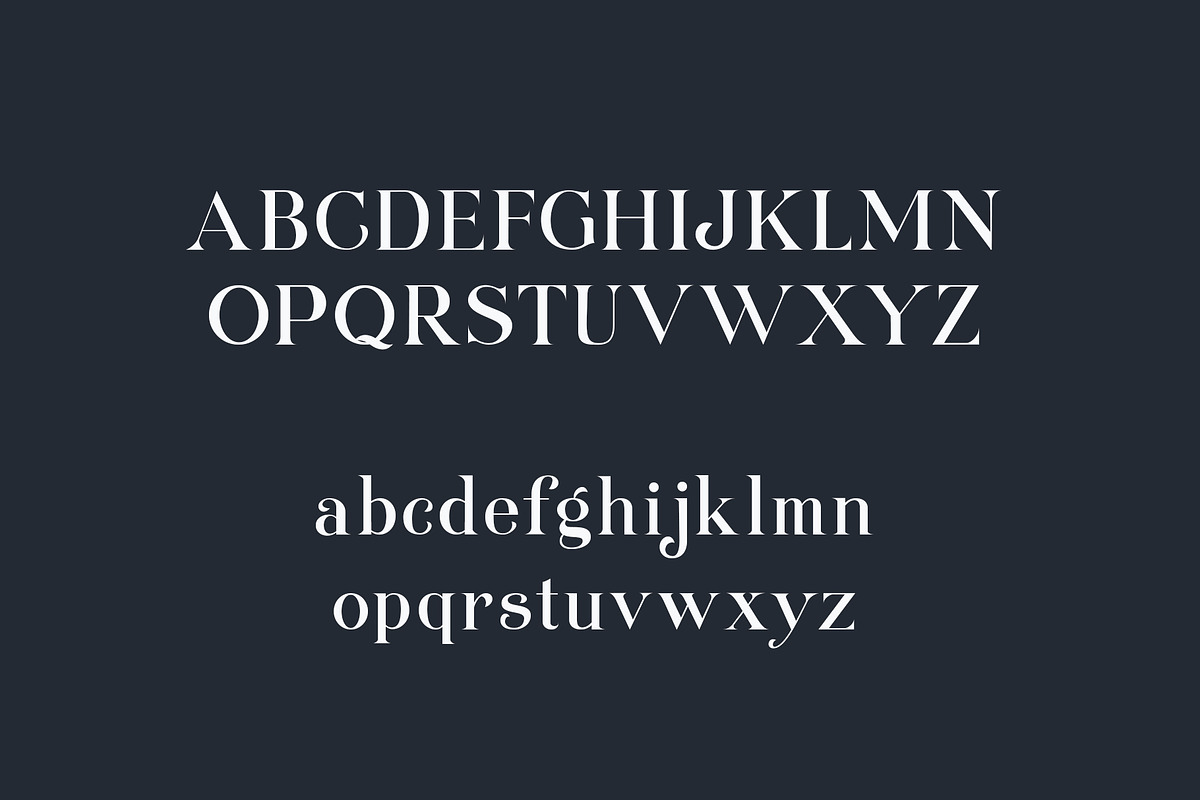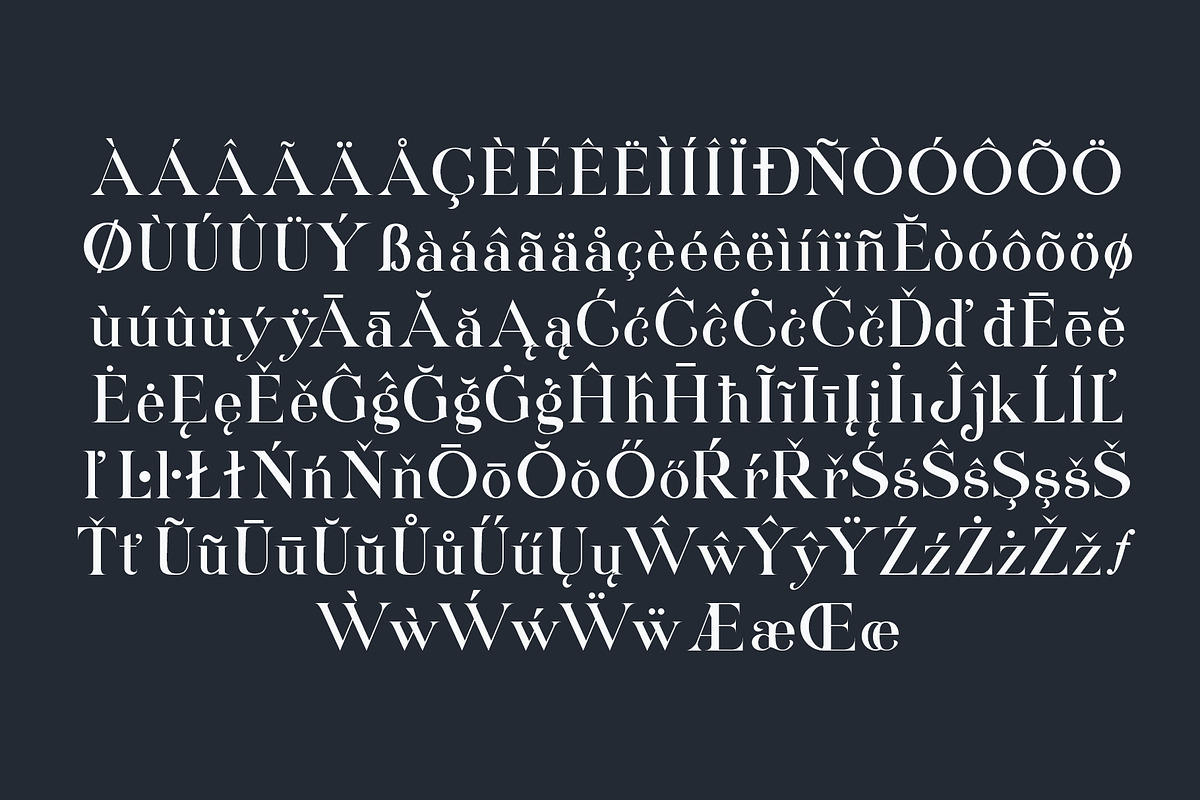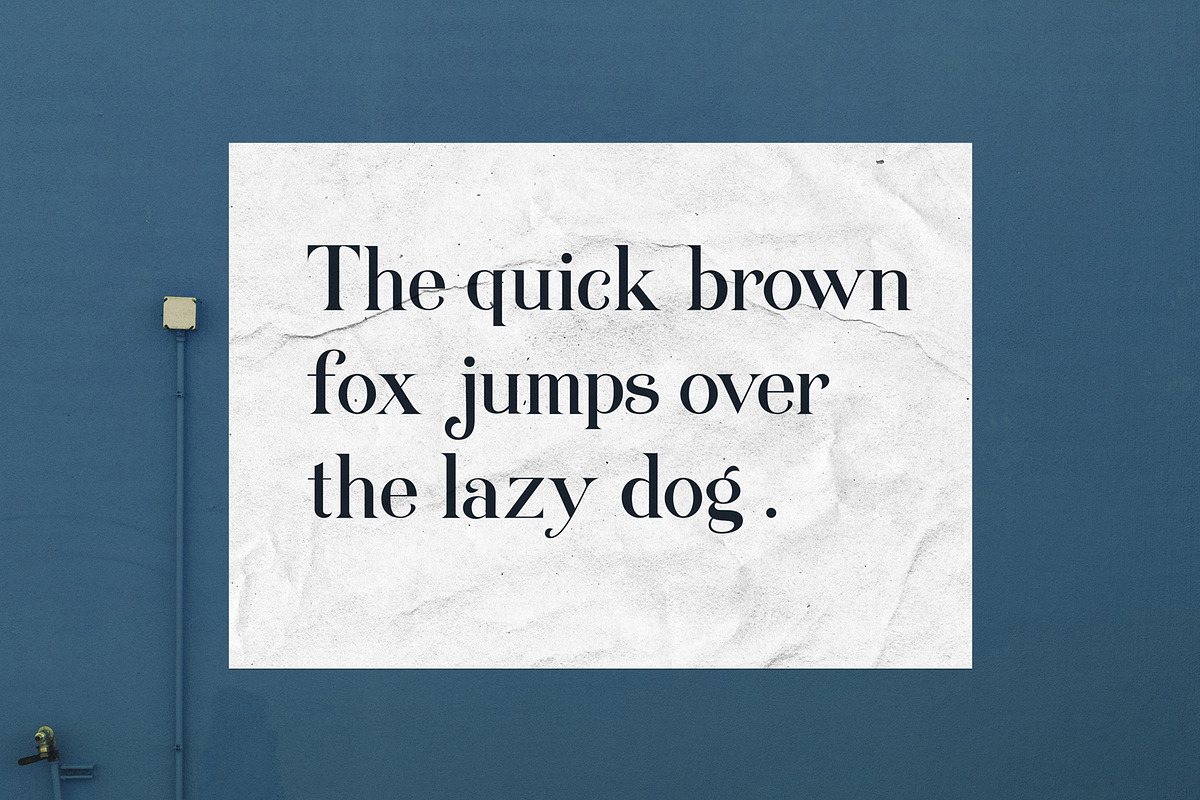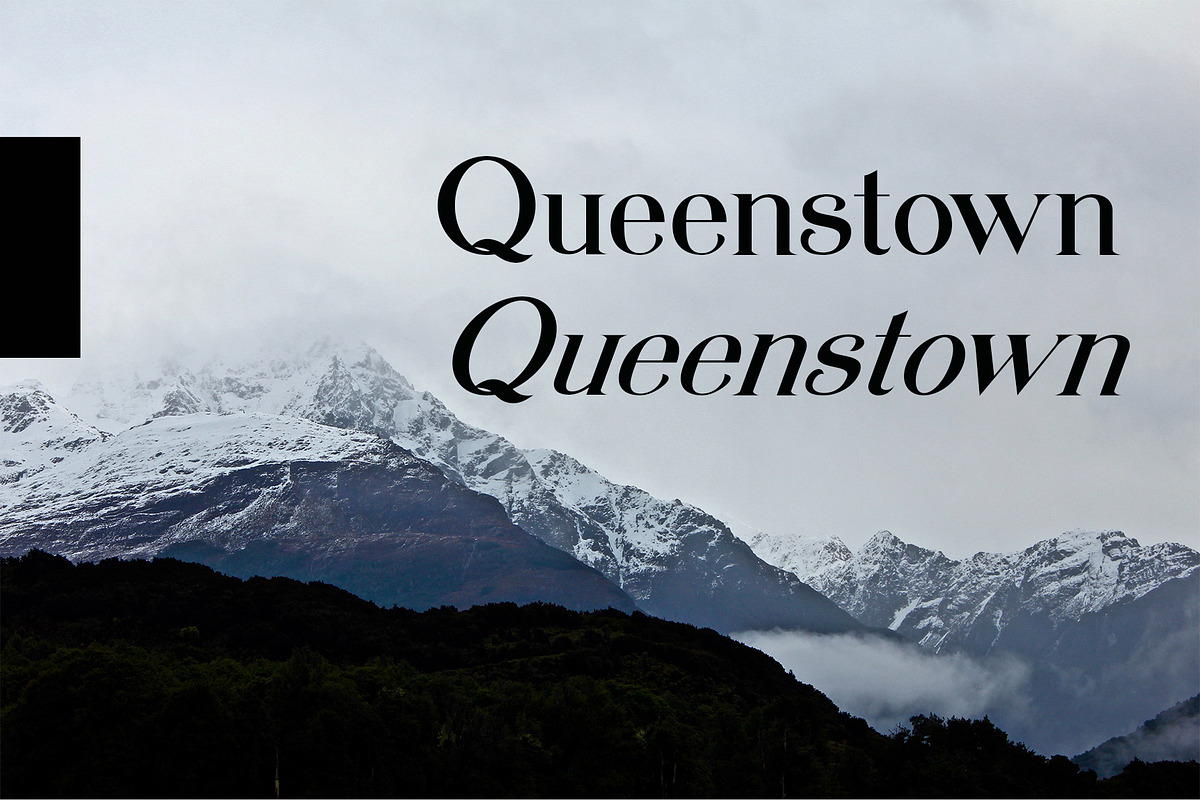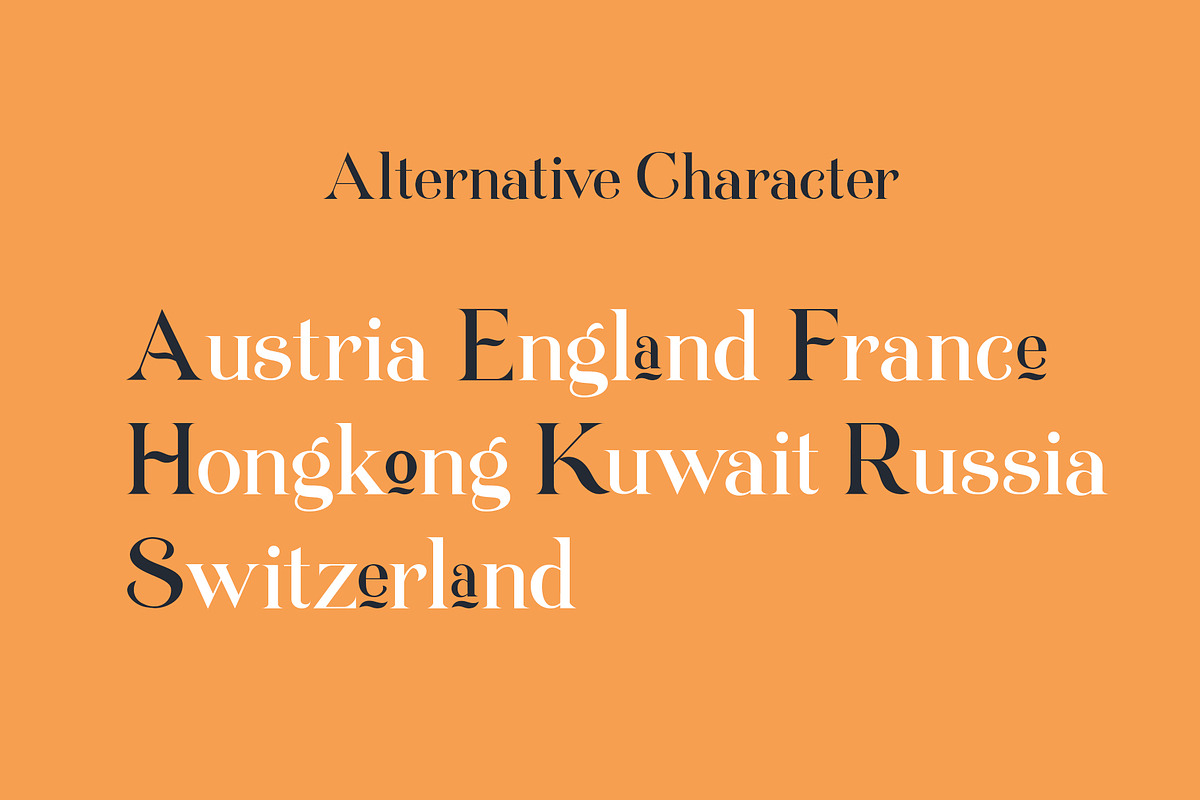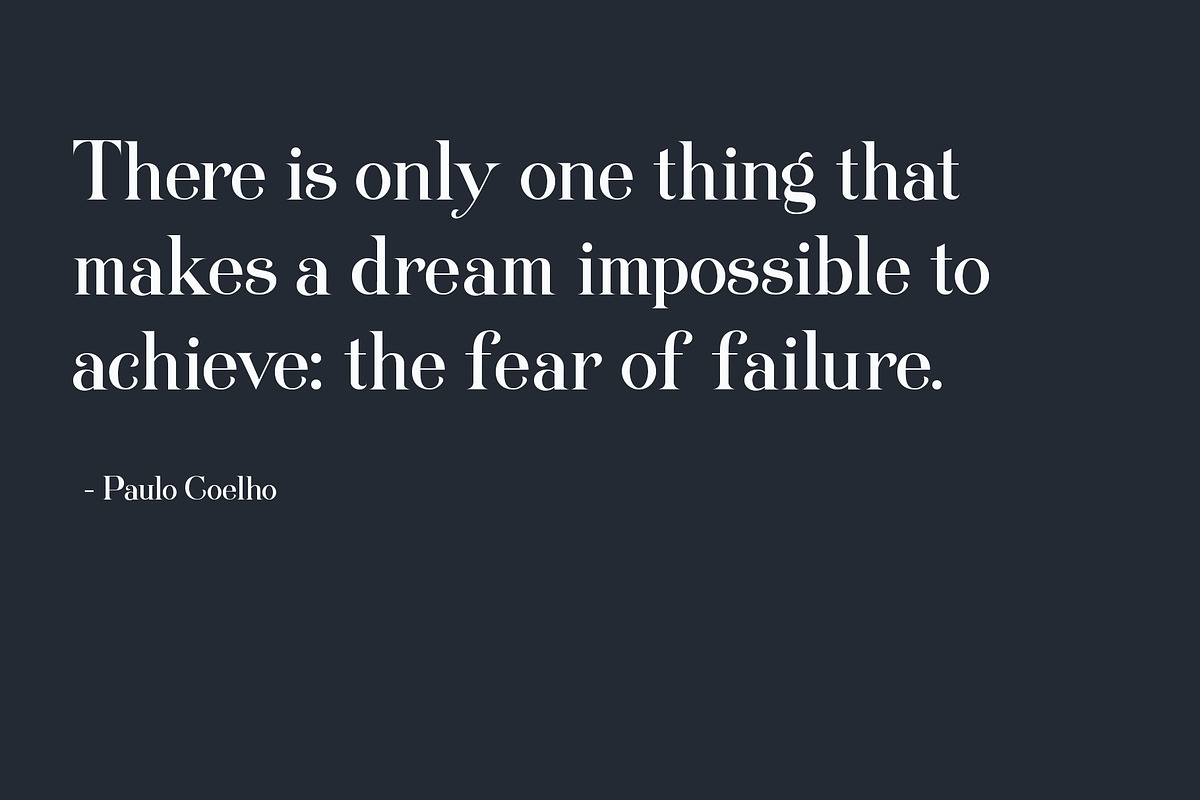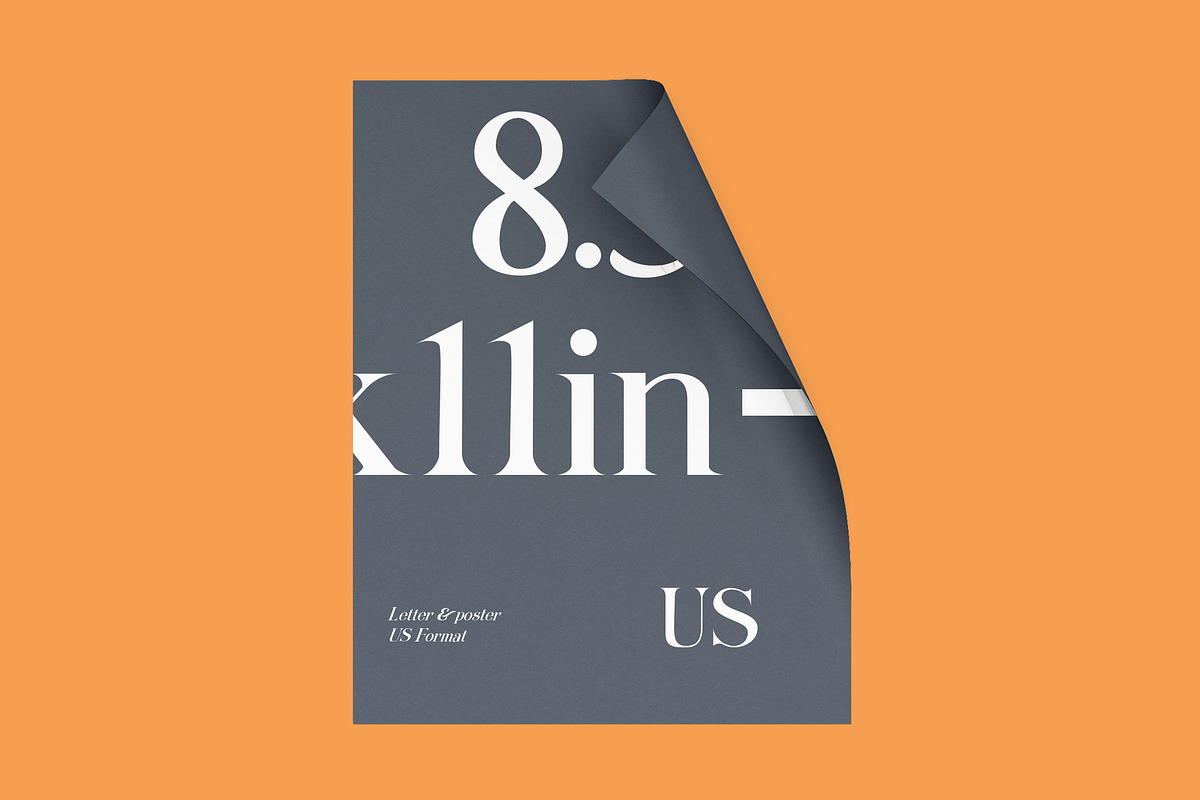
Queenstown serif font
Queenstown serif font is a classy and simple serif font, this font has several features such as alternative character, ligature and multi language support. This font is suitable for graphic design needs such as posters, magazines, UI / ux, logos and other designs or for collections.
multi language support